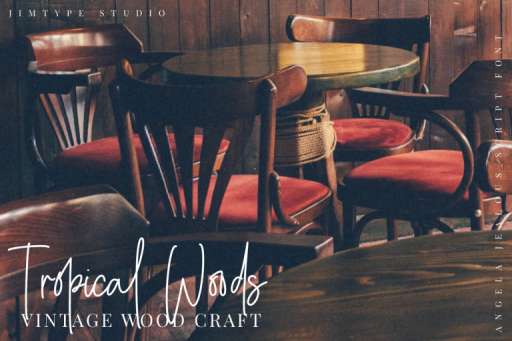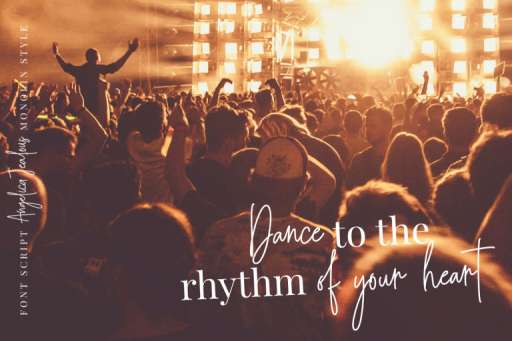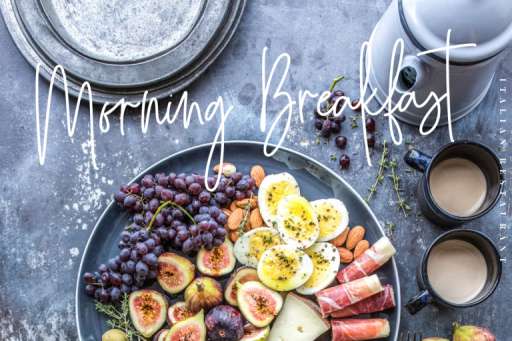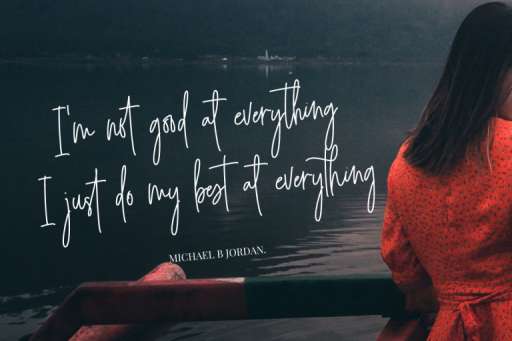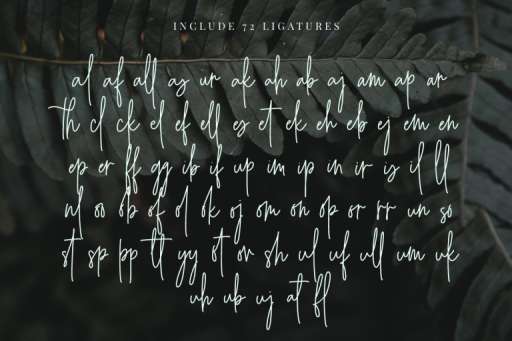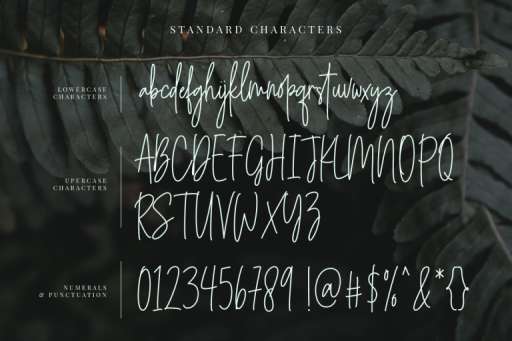
Angelica Jealous Font - Script Business Font From Jimtype Studio
Angelica Jealous Relugar
Angelica Jealous – Handwritten Script
Introducing Angelica Jealous; monoline script font with handwritten style an authentic and fashionable. This font is very special because it has a large selection of additional letters built in with a set of alternate upper and lower case letters and the Angelica Jealous was built to match the handwriting style as closely as possible with the addition of 72 custom ligatures.
This font looks very awesome for quotes, branding, logos & branding, weddings, watermark, web, crafting, social media, product design, advertisements, and much more.
Angelica Jealous Features :